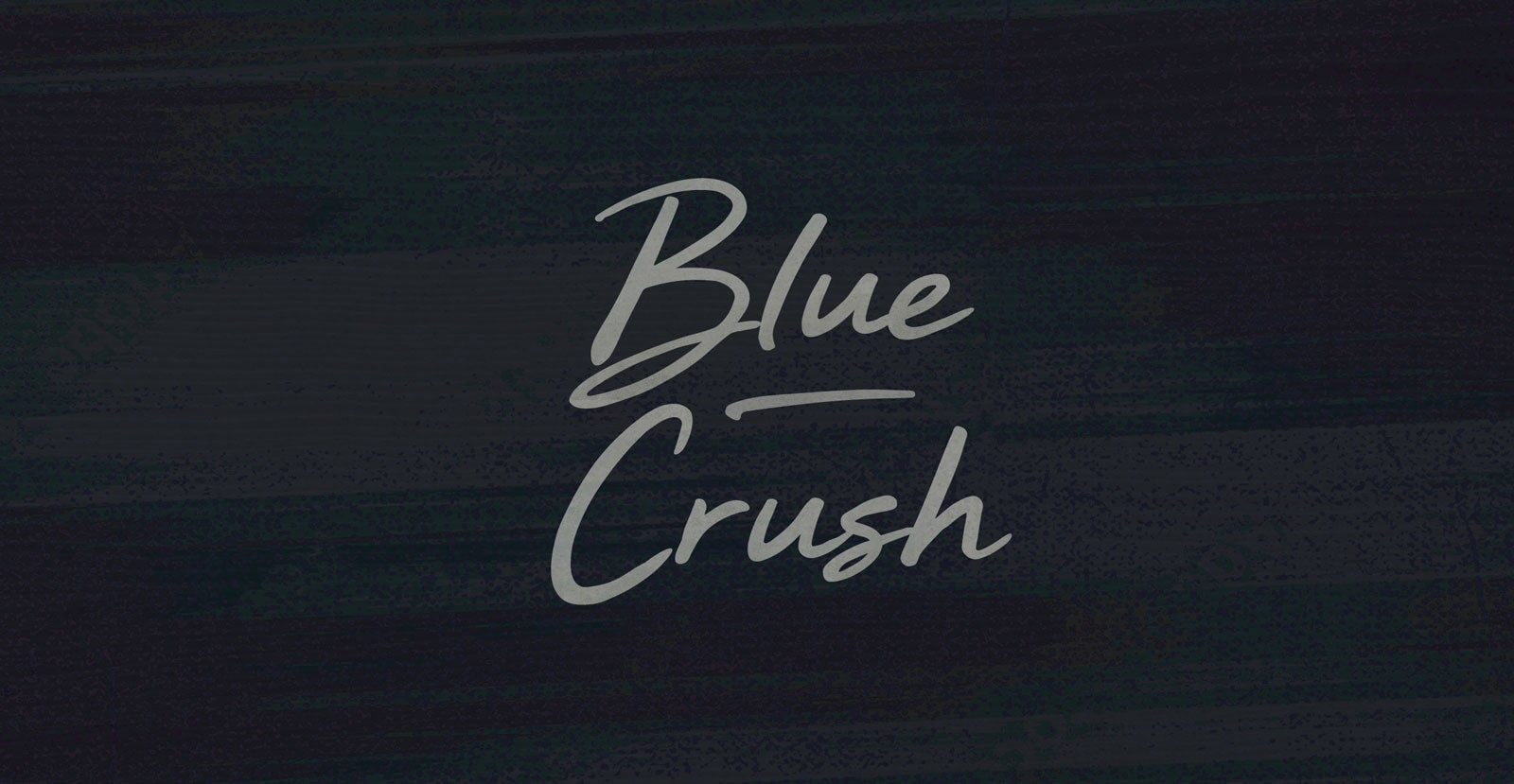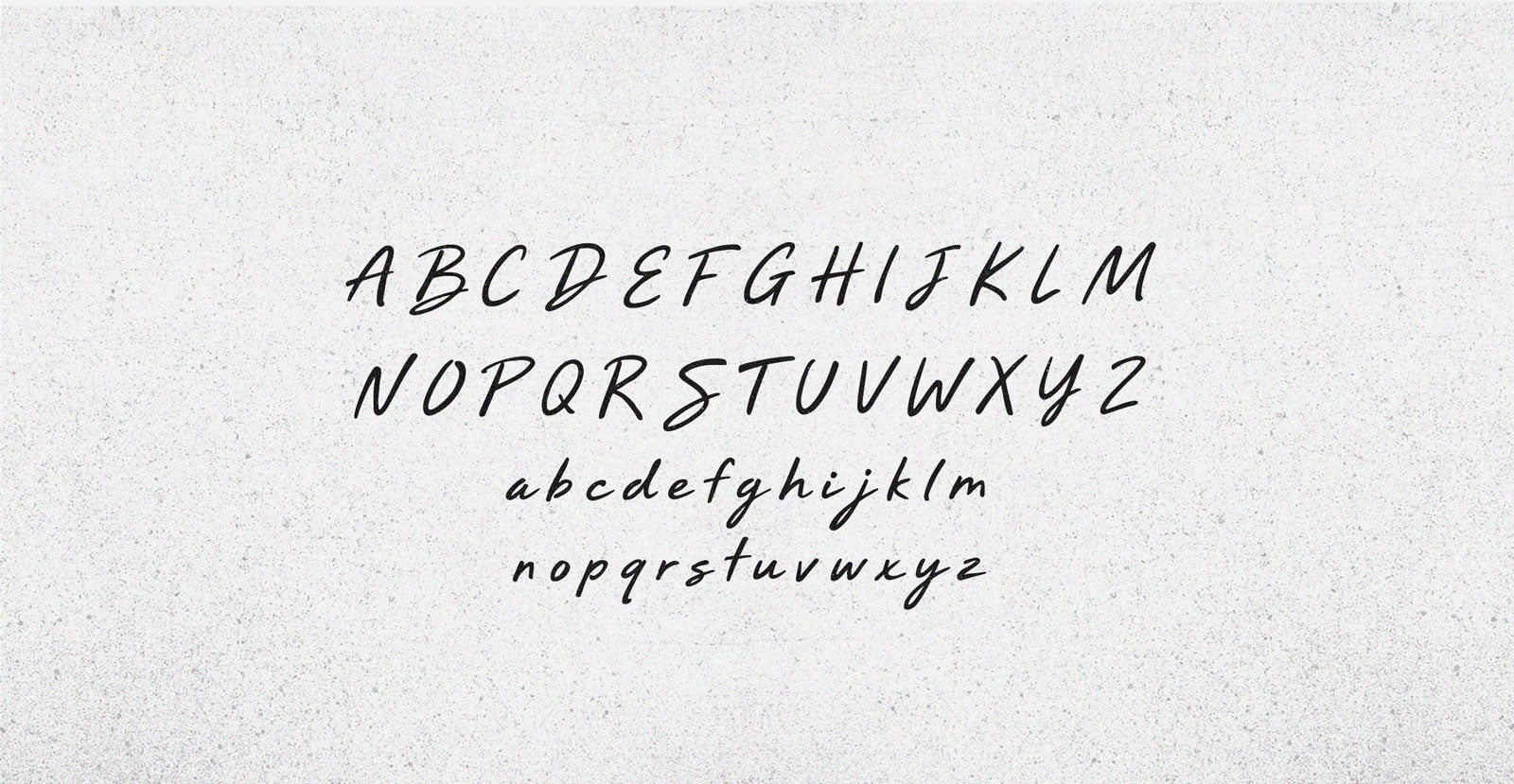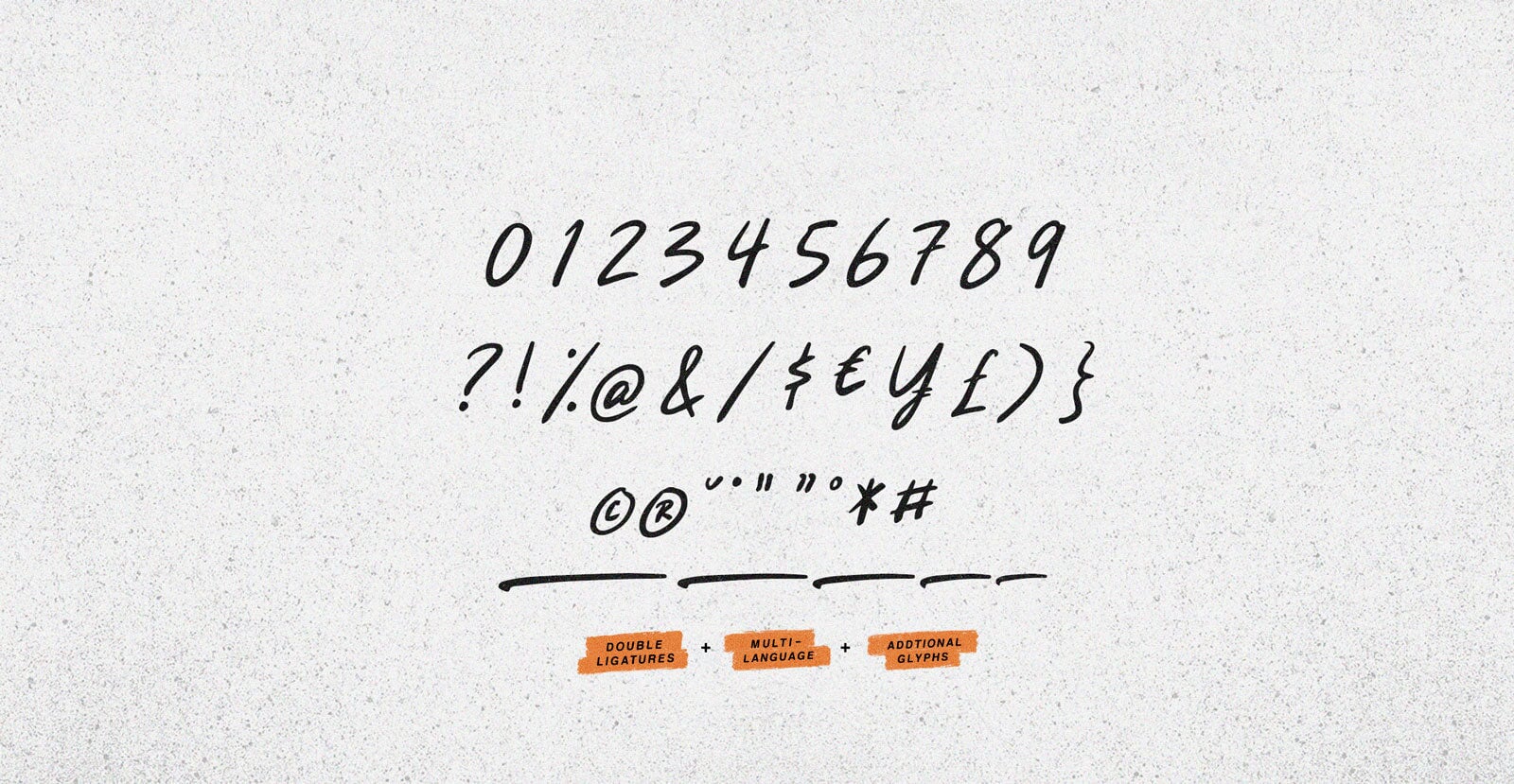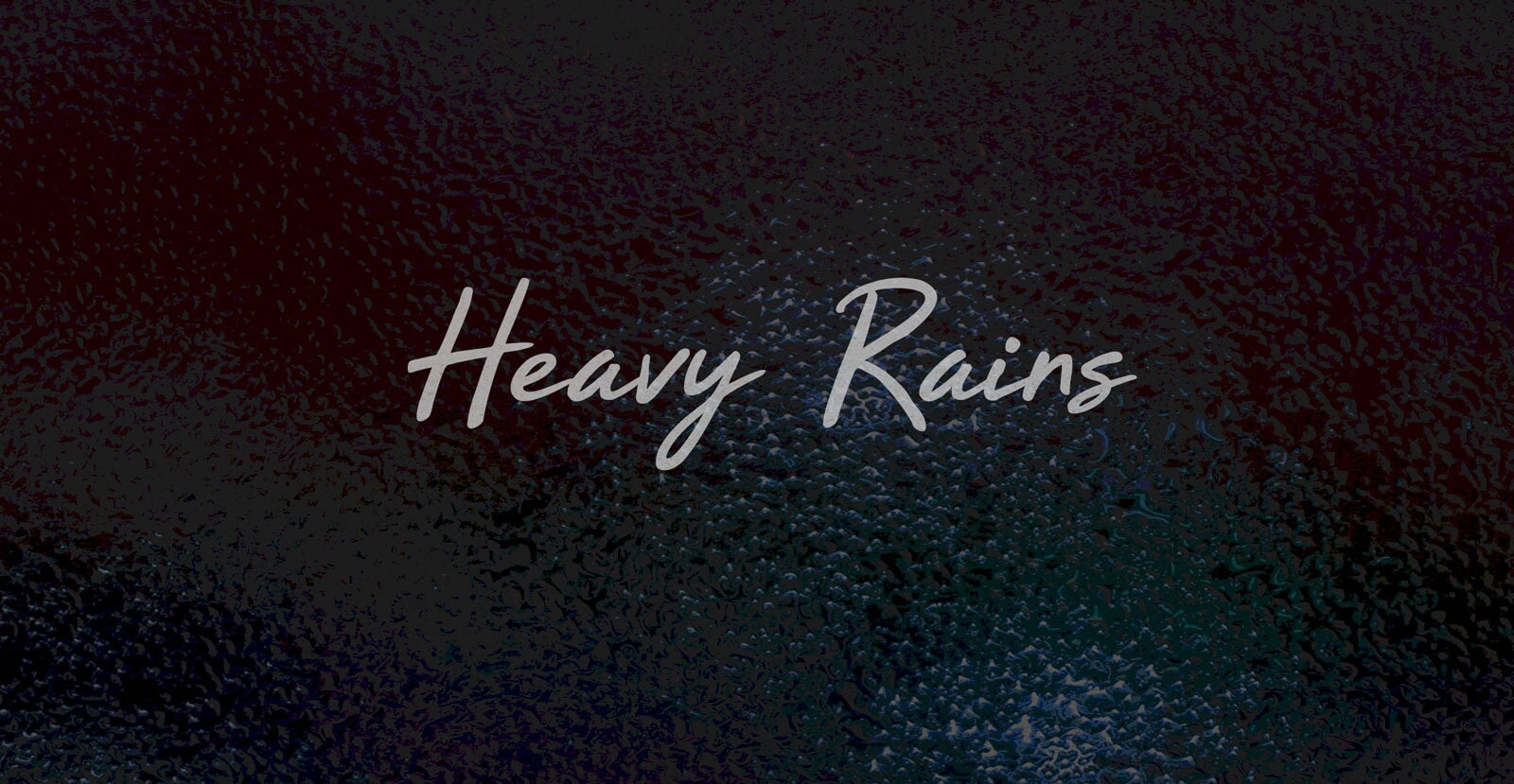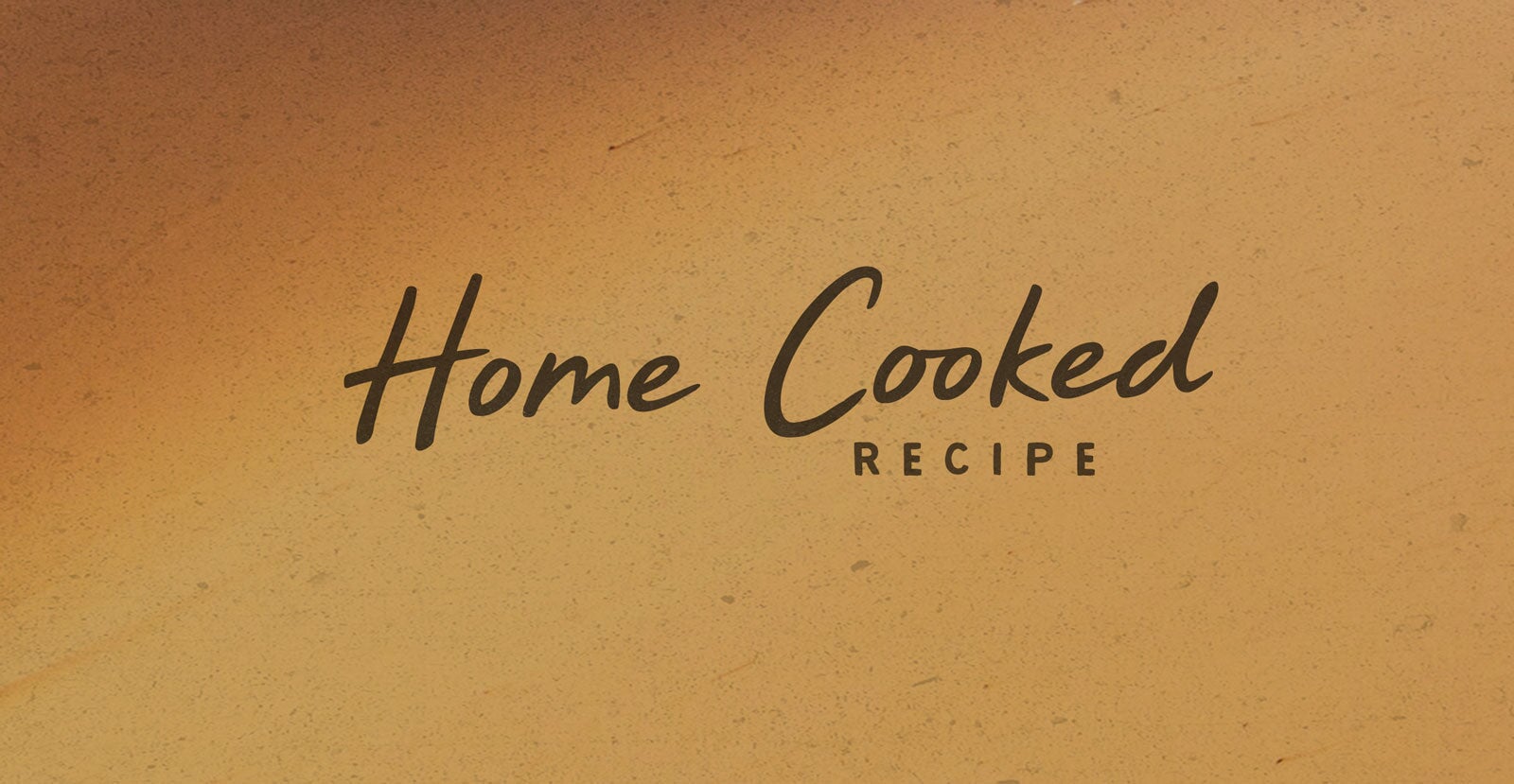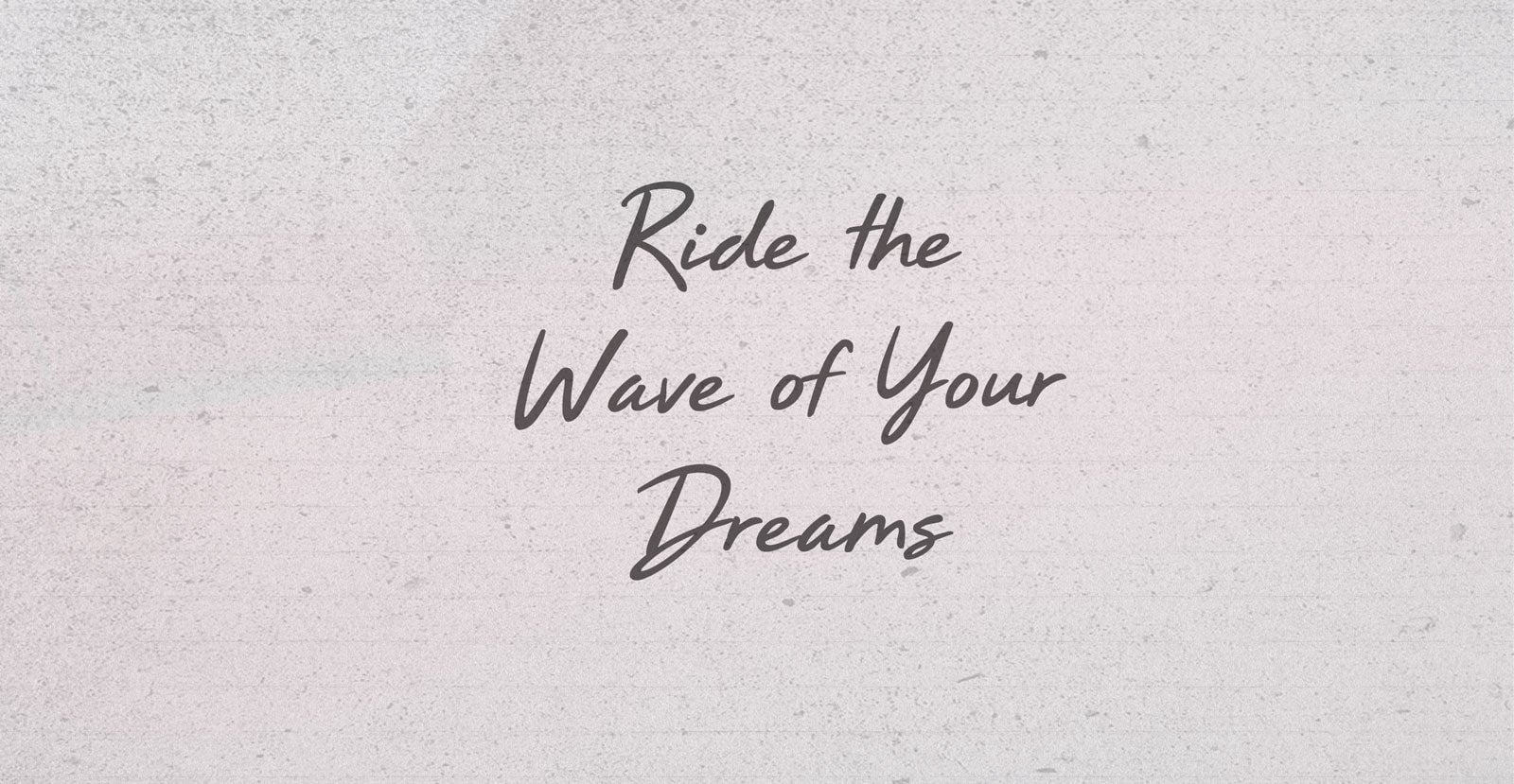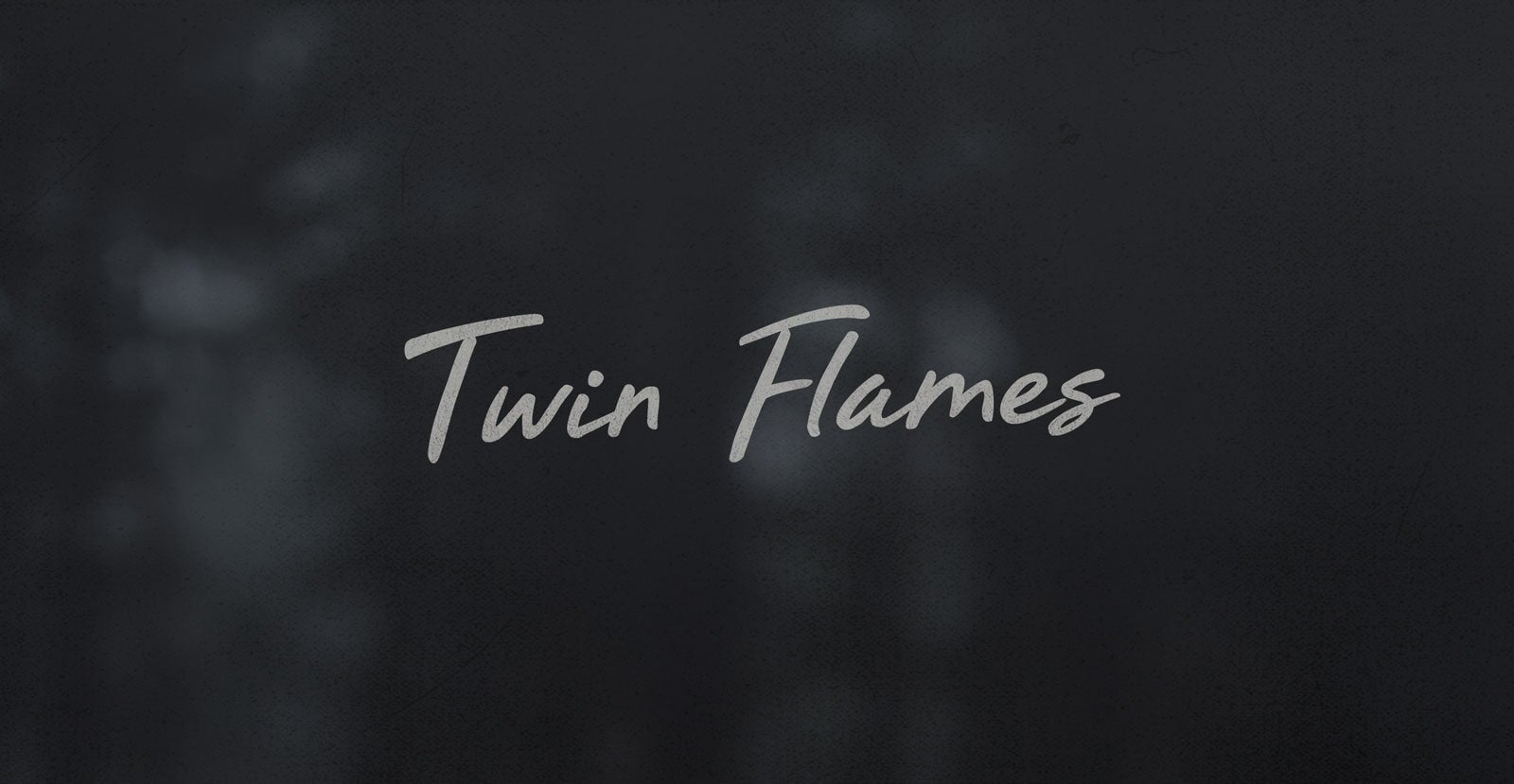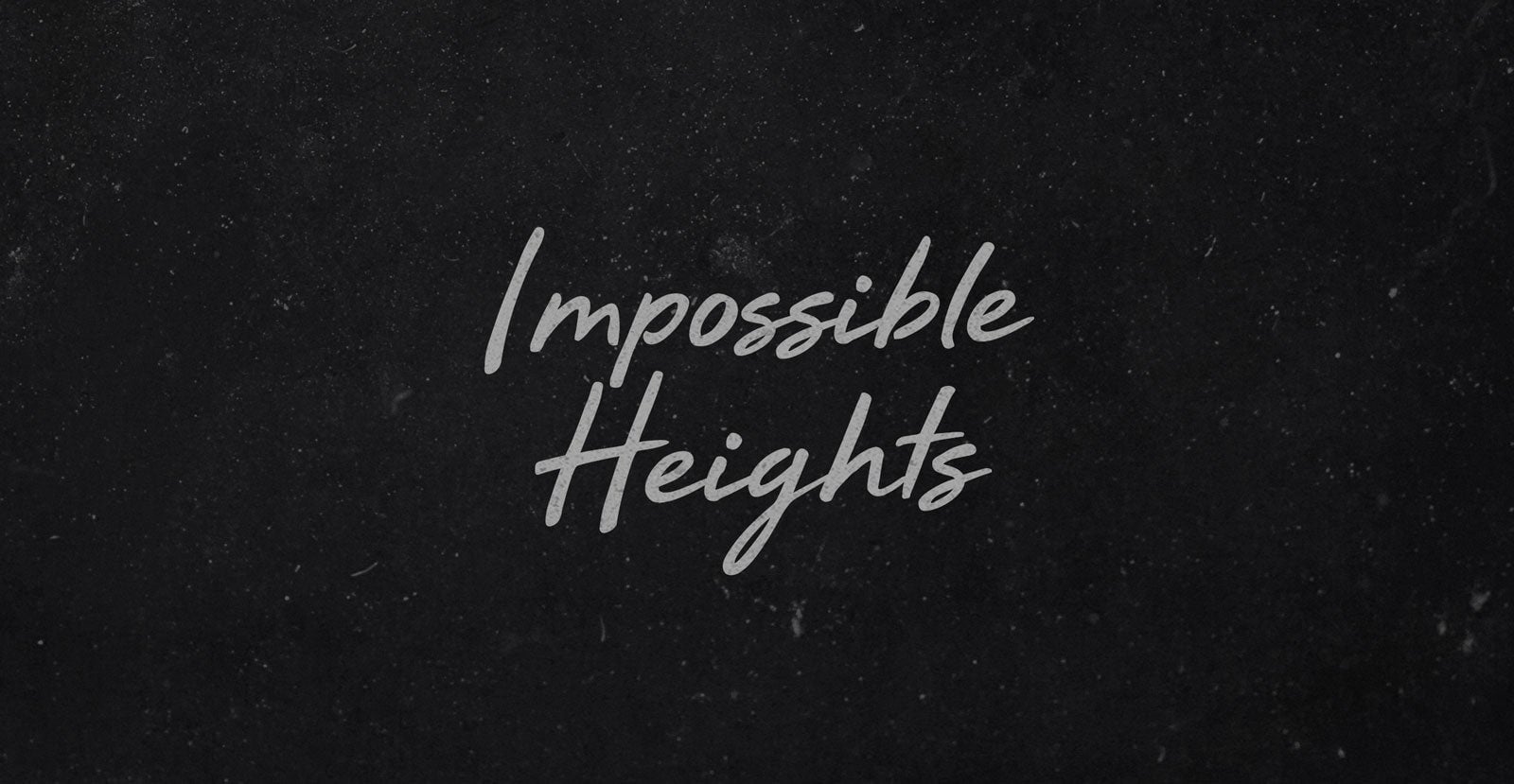
Blue Crush
Blue Crush is a ripple beneath the surface—cool tension, calm impact. It doesn’t announce itself, it arrives. A quiet force with a pulse, leaving a trace you can’t quite name but won’t forget.